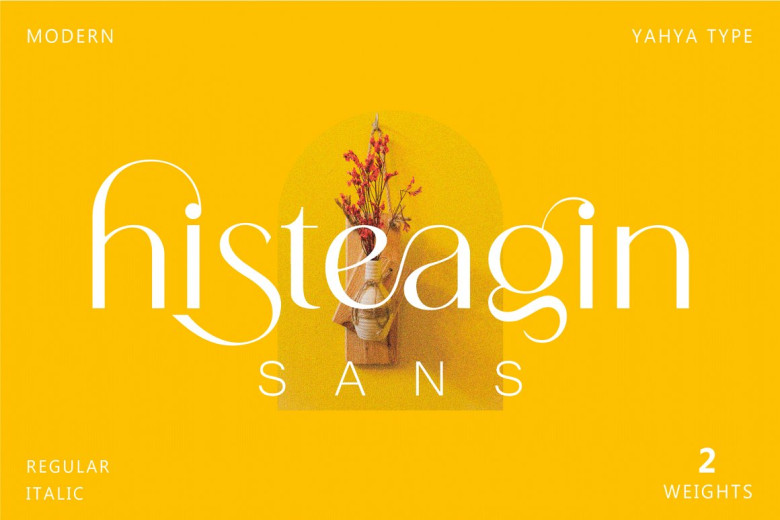
Histeagin Sans Font
Histeagin Sans is a new Sans Serif Font with extravagant curves and multilingual support. Perfect for logos, branding projects wedding designs advertisements social media posts packaging for products designs labels, photographs, watermarks, invitations or any other project you need an aesthetic font with versatile characters!
Histeagin Sans is versatile enough to adapt itself for logos branding projects wedding designs advertisements social media posts packaging for products designs labels photographs watermarks invitations or any other task at hand.
Histeagin Sans Serif Font